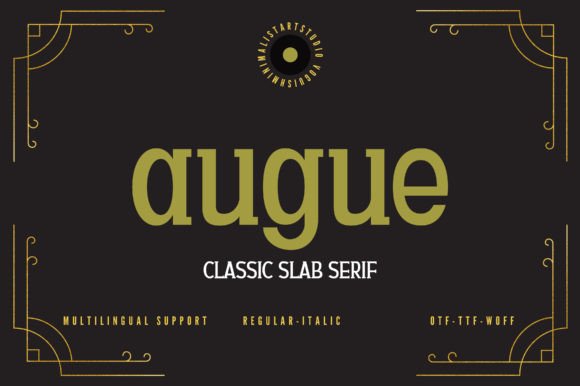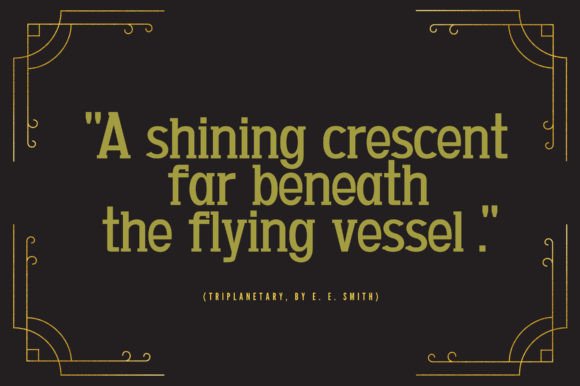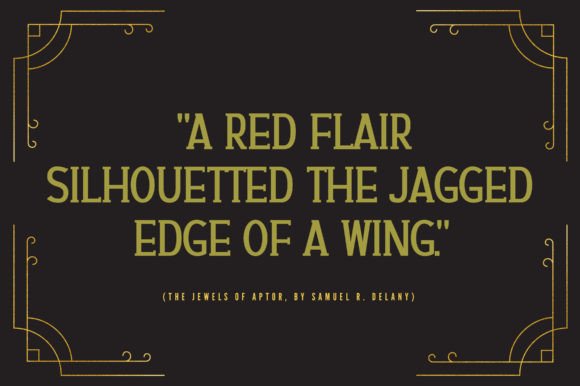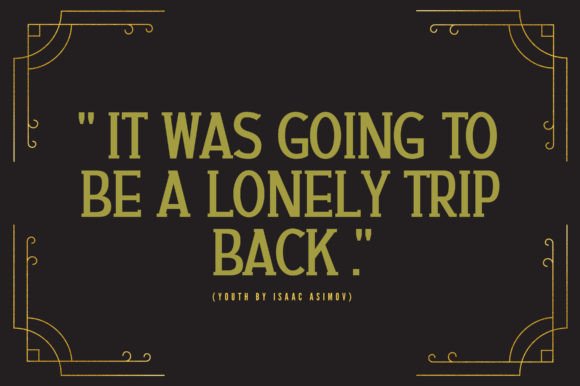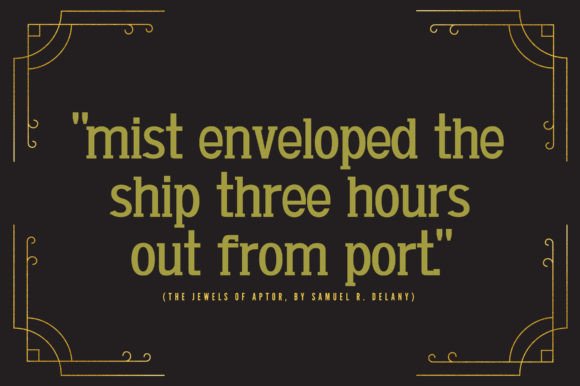
About Augue
Augue is a thick, elegant and geometric slab serif typeface. It is suitable to be used in headings and body texts. It can also be used for packaging design, perfume design, cosmetics design, web design, magazine covers, etc. Add this font to your favorite creative ideas, and notice how it makes them stand out!